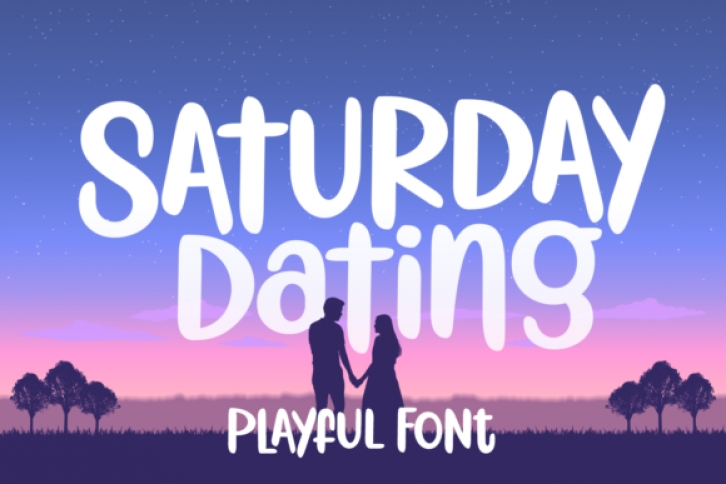
Saturday Dating is a fresh and playful handwritten font. Whether you’re looking for fonts for Instagram or calligraphy scripts for DIY projects, this font will turn any creative idea into a true piece of art!